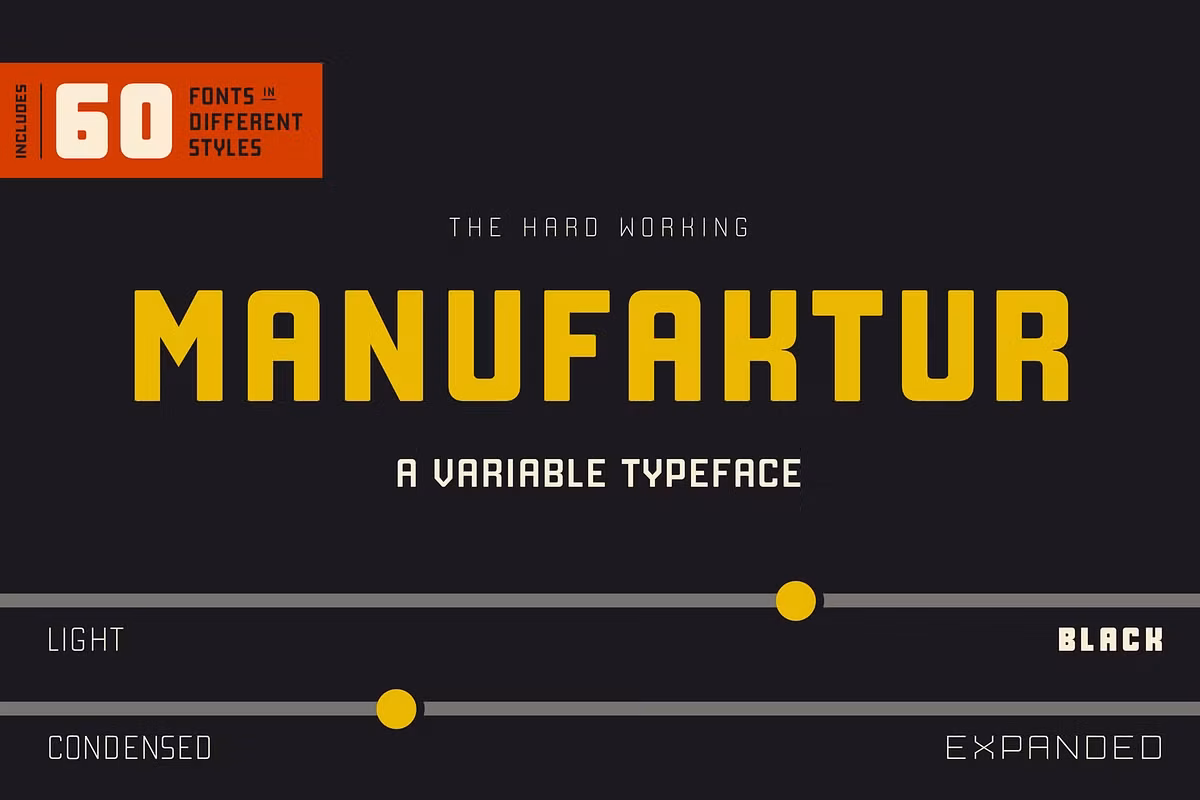
Manufaktur - A 60 Fonts Family Free Download is a comprehensive and versatile typeface family that includes 60 distinct fonts, offering a wide range of styles and weights. With its clean, modern design and exceptional flexibility, this font family is perfect for a wide range of design projects, including branding, editorial layouts, web design, posters, logos, and more.
The variety of fonts allows you to create consistent and dynamic typography across all your projects, from professional corporate designs to creative, expressive projects. Whether you need a sleek sans-serif for body text or a bold display font for headings, the Manufaktur family has you covered.